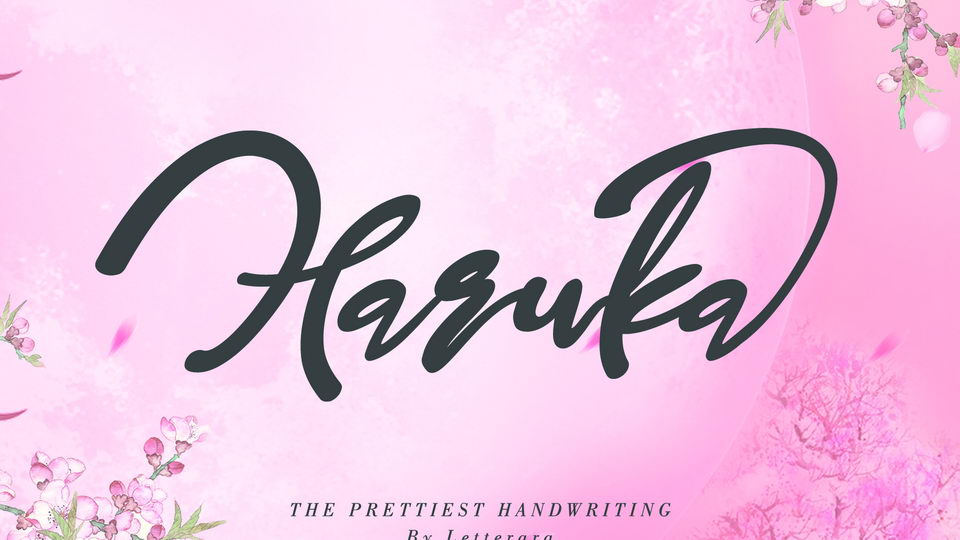
Download Haruka Script, a beautiful handwritten font inspired by Japanese kimono. Haruka font is suitable for title designs, invitations, books titles, stationery, quotes, branding, wedding